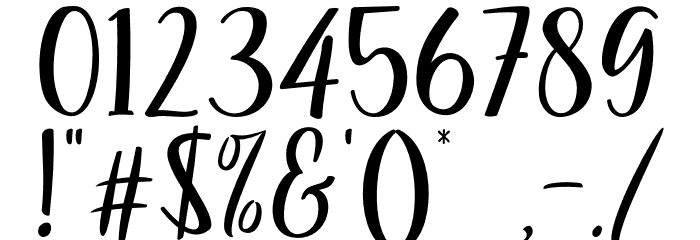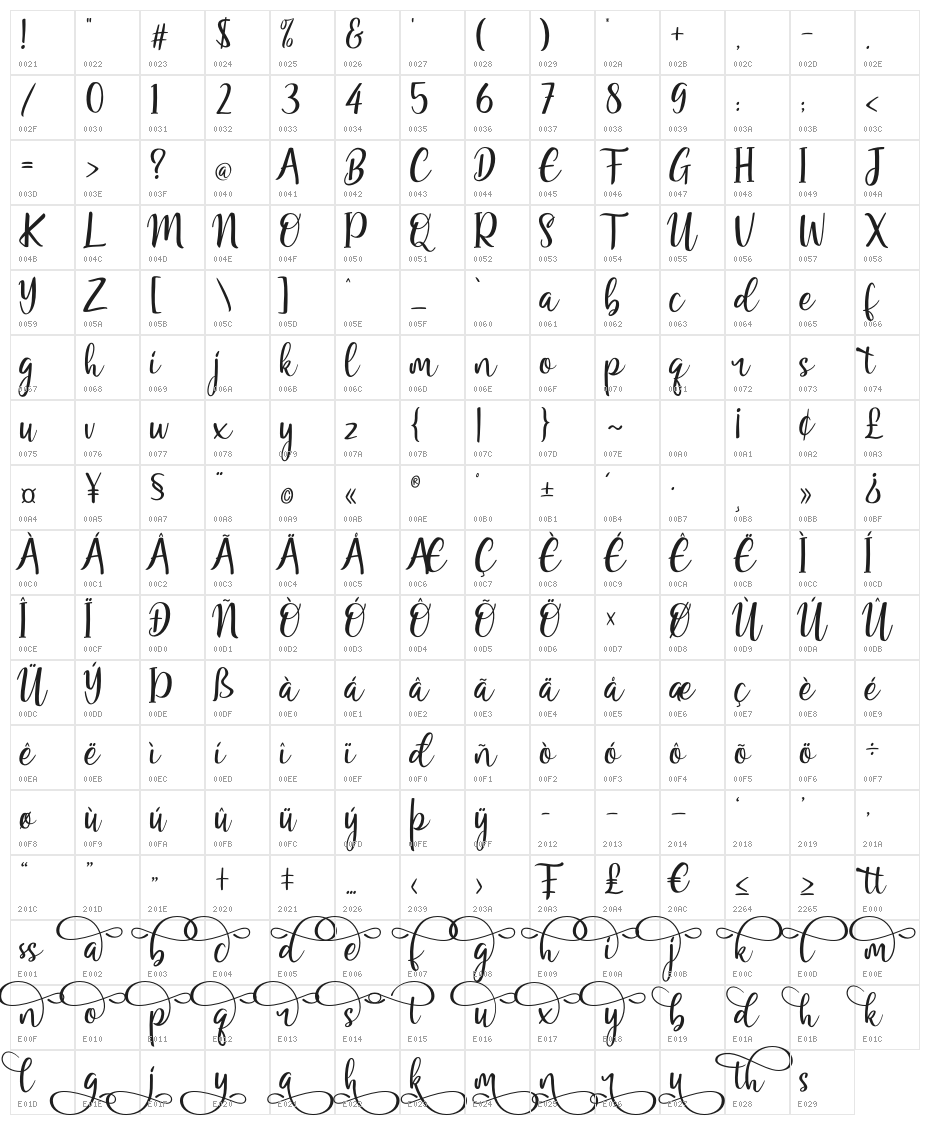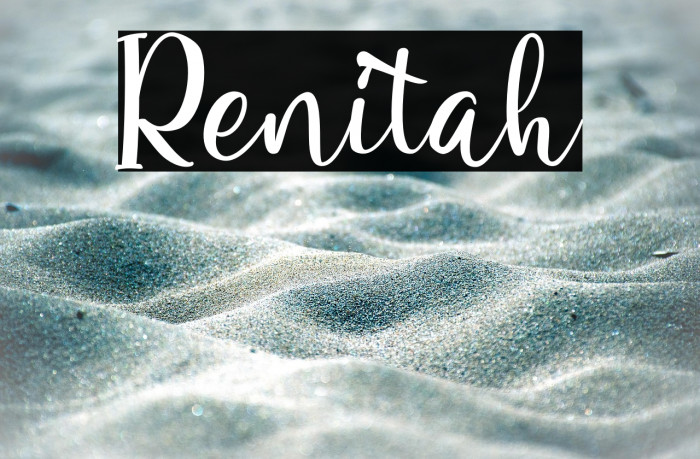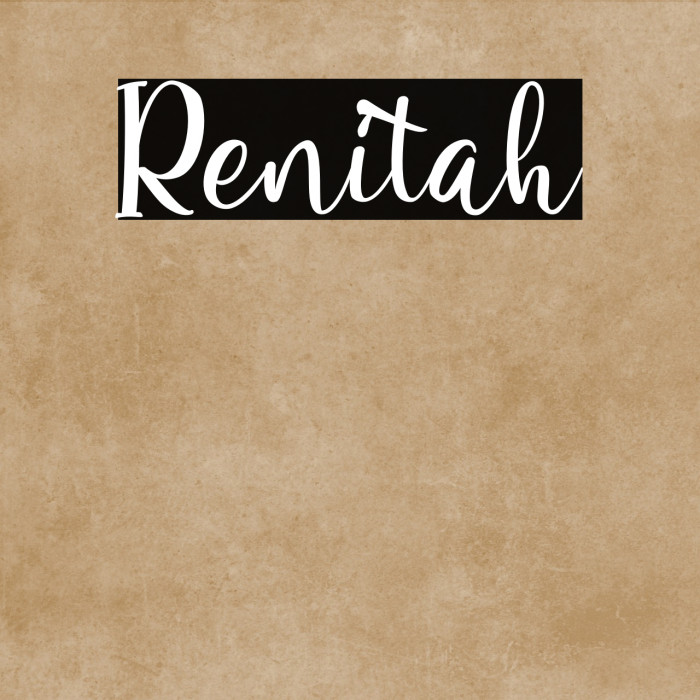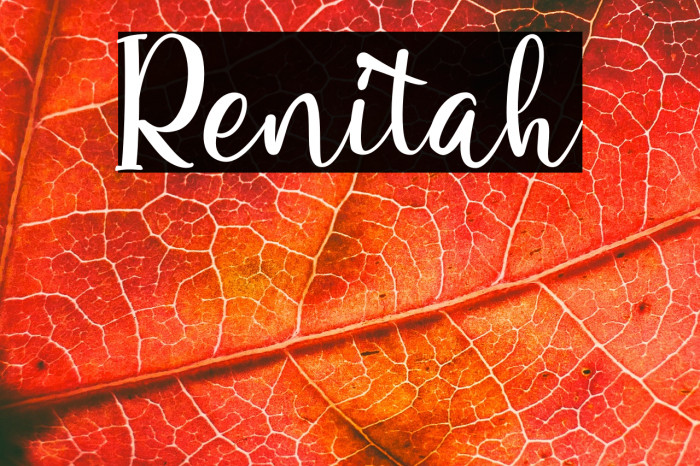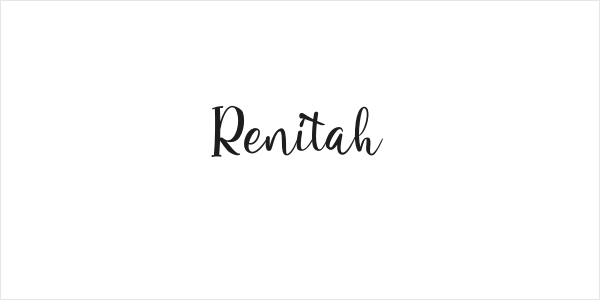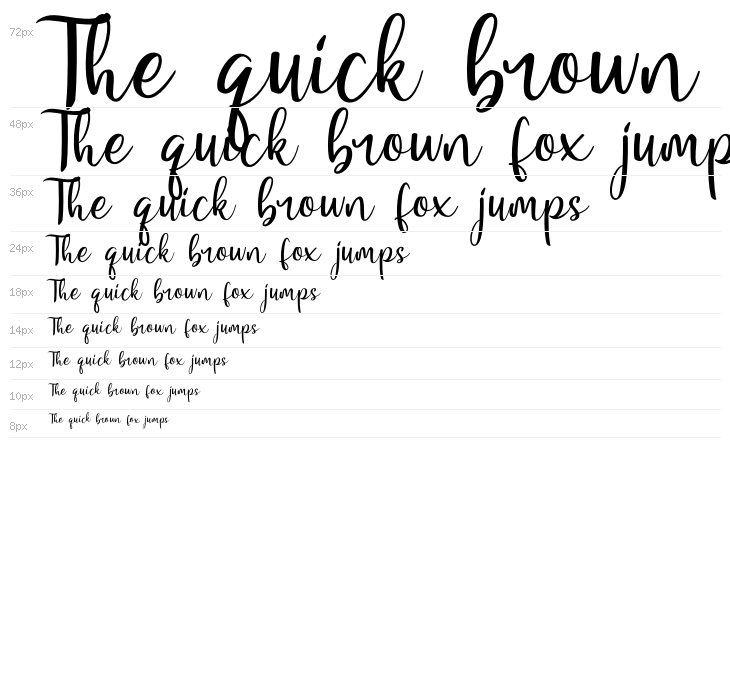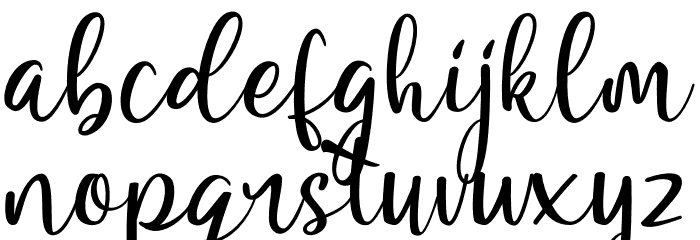
Renitah Font
Renitah Description
This font features a lively and expressive handwritten style, characterized by its flowing and dynamic letterforms. The uppercase letters exhibit a bold and confident presence, while the lowercase letters maintain a consistent fluidity, enhancing the overall aesthetic. The numerals are equally expressive, maintaining the playful and artistic vibe of the font. Special characters are thoughtfully designed to complement the alphabet, ensuring versatility in various design contexts. The font's unique charm lies in its ability to convey a sense of creativity and personal touch, making it ideal for projects that require a humanistic and approachable feel.